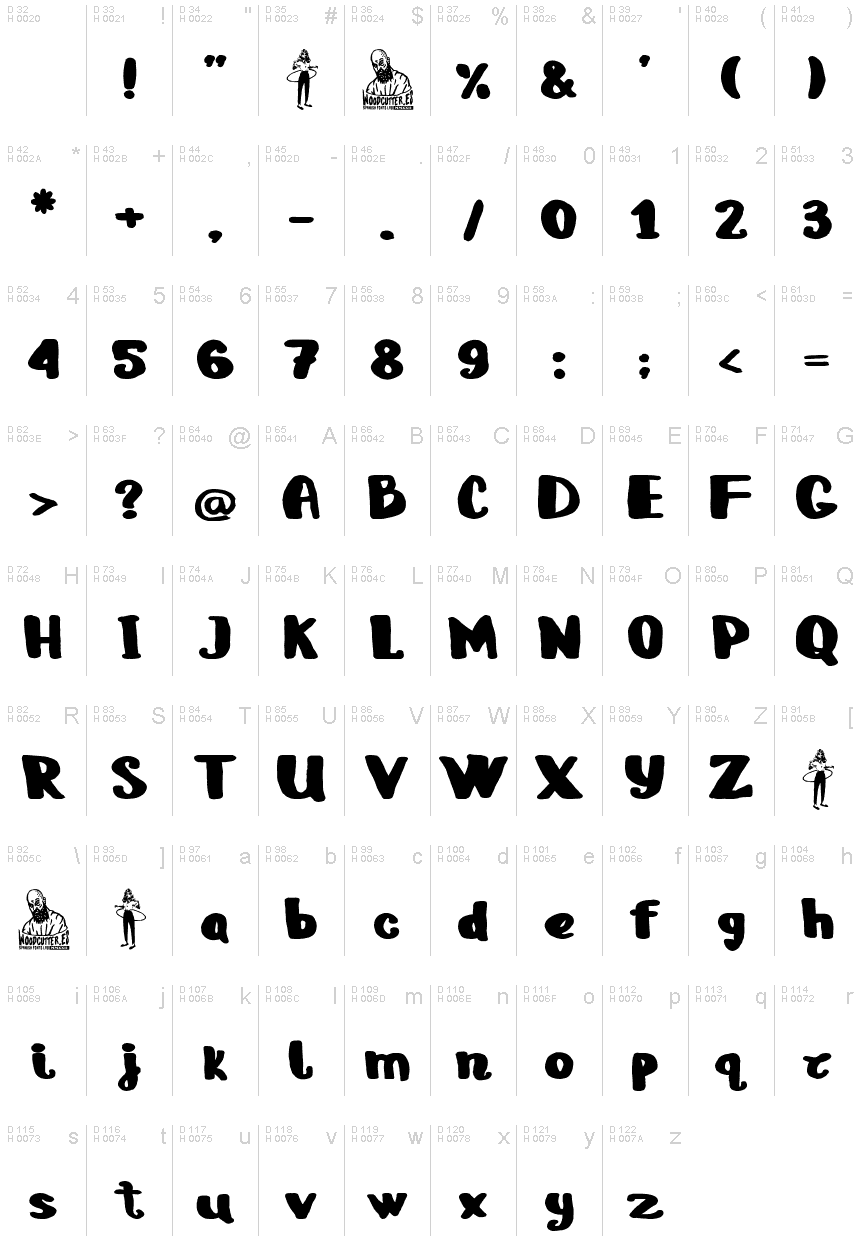
Hey Lola!
Hey Lola! by Woodcutter is a playful and bold display font that screams fun and excitement. With its extra-bold weight and cartoon style, it's perfect for projects that require an energetic and youthful approach. Use it for branding campaigns, children's books, comic strips, or even for designing vibrant social media graphics. Hey Lola! adds a touch of whimsy to any project and is guaranteed to catch the eye of your audience. Get ready for some serious attention-grabbing with this lively typeface!